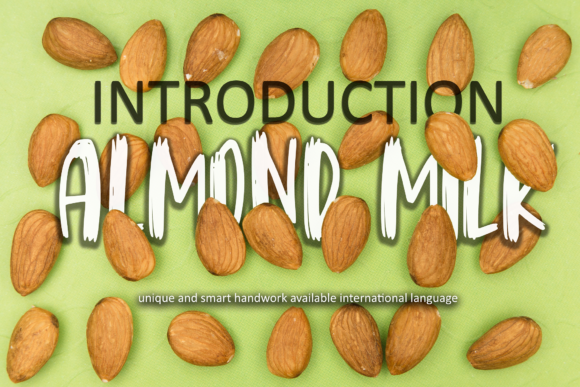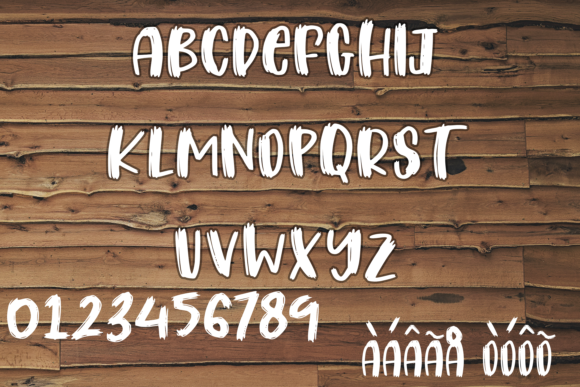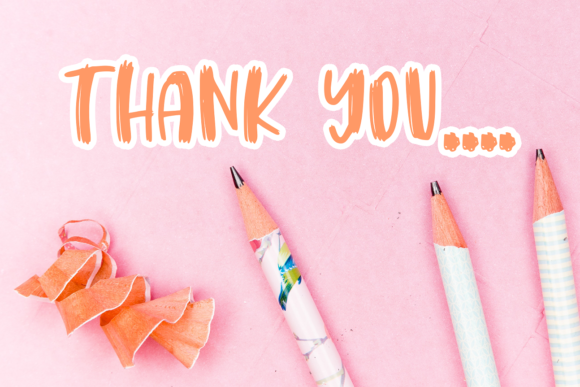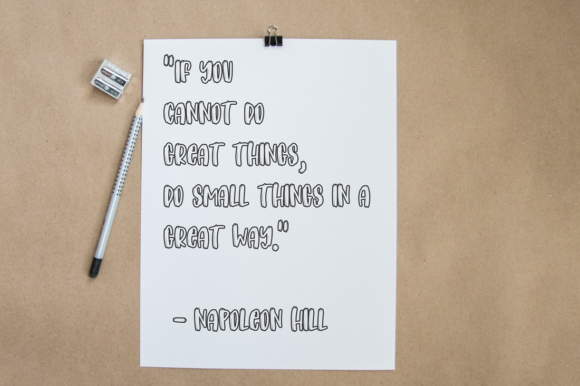
Introducing Almond Milk Font: The Cute and Friendly Brushed Display Font
Are you tired of using the same old fonts in your designs? Look no further than Almond Milk Font, a charming and approachable brushed display font that’s sure to elevate your creations. With its unique blend of playfulness and sophistication, Almond Milk Font is an incredibly versatile asset that can be used for a wide range of projects, from branding and advertising to packaging and crafting.
The Characteristics of Almond Milk Font
Almond Milk Font is a beautifully crafted font that boasts a distinctive, hand-brushed look. Its letters are carefully designed to resemble the imperfect, yet endearing, strokes of a paintbrush, giving it a delightfully organic and whimsical feel. The font’s texture is warm and inviting, making it perfect for designs that require a personal touch.
What Makes Almond Milk Font So Special?
So, what sets Almond Milk Font apart from other fonts out there? Here are just a few reasons why this font is an incredibly valuable addition to any designer’s library:
- Versatility: Almond Milk Font is incredibly versatile, making it suitable for a wide range of projects, from fun and playful designs to more serious and elegant ones.
- Ease of use: This font is incredibly easy to read, even at smaller sizes, making it perfect for body text, headings, and titles.
- Uniqueness: Almond Milk Font has a distinctive look that sets it apart from more traditional fonts, ensuring that your designs will stand out from the crowd.
- Emotional connection: The font’s warm and inviting texture creates an instant emotional connection with the viewer, making it perfect for designs that require a personal touch.
How to Use Almond Milk Font in Your Designs
Almond Milk Font is incredibly easy to use, and its versatility makes it suitable for a wide range of design applications. Here are just a few ideas to get you started:
- Branding and advertising: Use Almond Milk Font to create eye-catching logos, advertisements, and marketing materials that will help your brand stand out.
- Packaging design: Add a personal touch to your product packaging with Almond Milk Font, which is perfect for labels, tags, and other decorative elements.
- Crafting and DIY projects: Use Almond Milk Font to add a touch of whimsy and personality to your crafting and DIY projects, such as handmade cards, gift tags, and other paper crafts.
- Digital design: Almond Milk Font is also perfect for digital designs, such as social media graphics, blog headers, and website titles.
Tips and Tricks for Getting the Most Out of Almond Milk Font
To get the most out of Almond Milk Font, here are a few tips and tricks to keep in mind:
- Experiment with different colors: Almond Milk Font looks great in a wide range of colors, so don’t be afraid to experiment and find the perfect hue for your design.
- Mix and match: Combine Almond Milk Font with other fonts to create a unique and eye-catching design.
- Pay attention to spacing: Make sure to adjust the spacing between letters to ensure that your text is easy to read and visually appealing.
Almond Milk Font is a delightful and versatile brushed display font that’s sure to become a valuable asset in your design library. With its unique blend of playfulness and sophistication, this font is perfect for a wide range of design applications, from branding and advertising to packaging and crafting. So why wait? Download Almond Milk Font today and start elevating your designs to the next level!